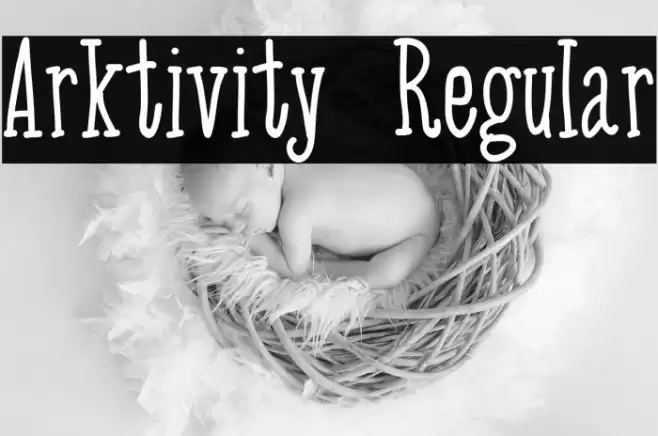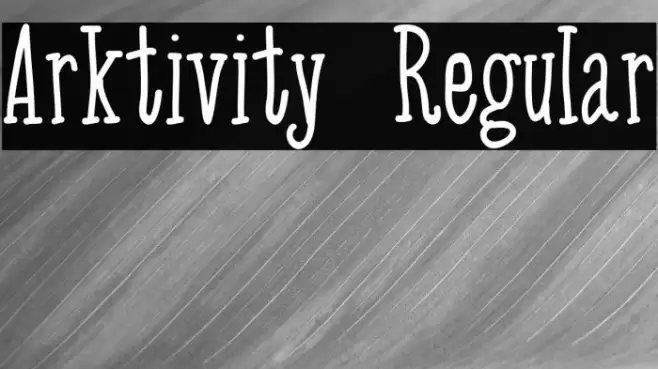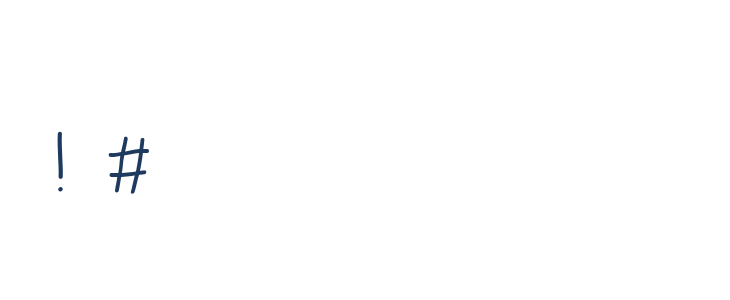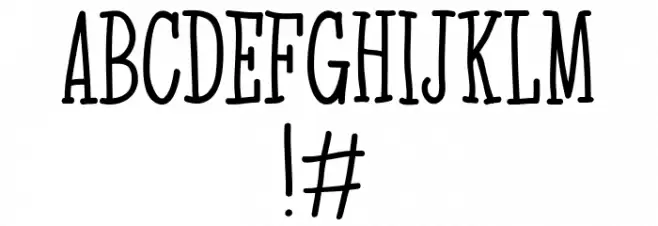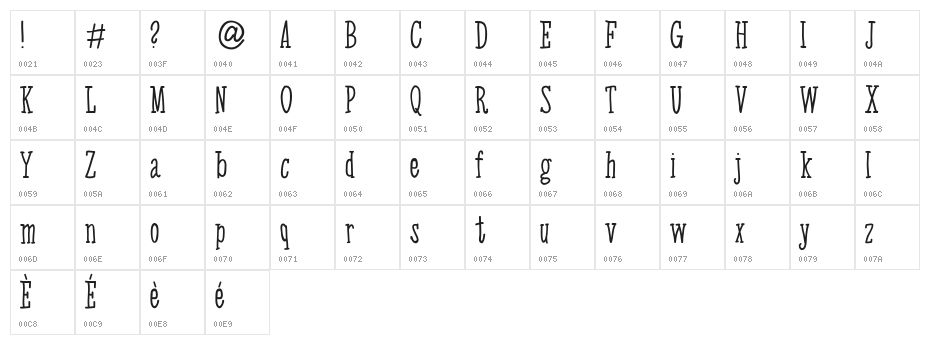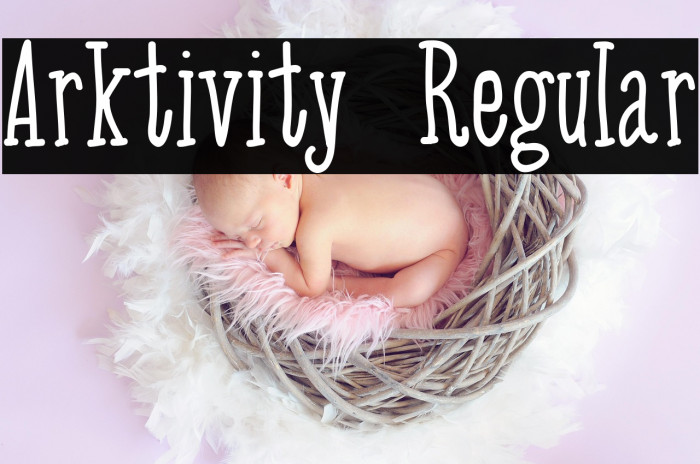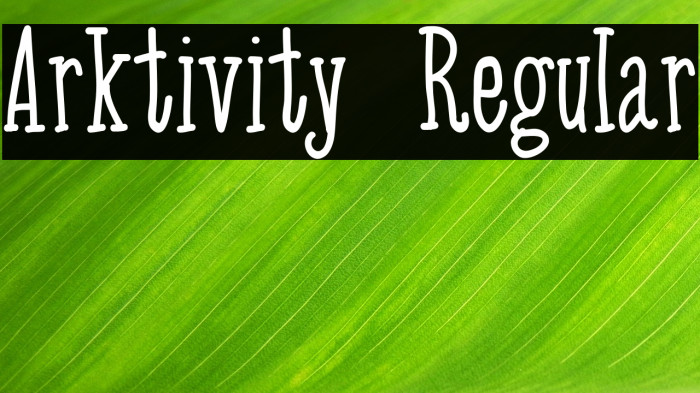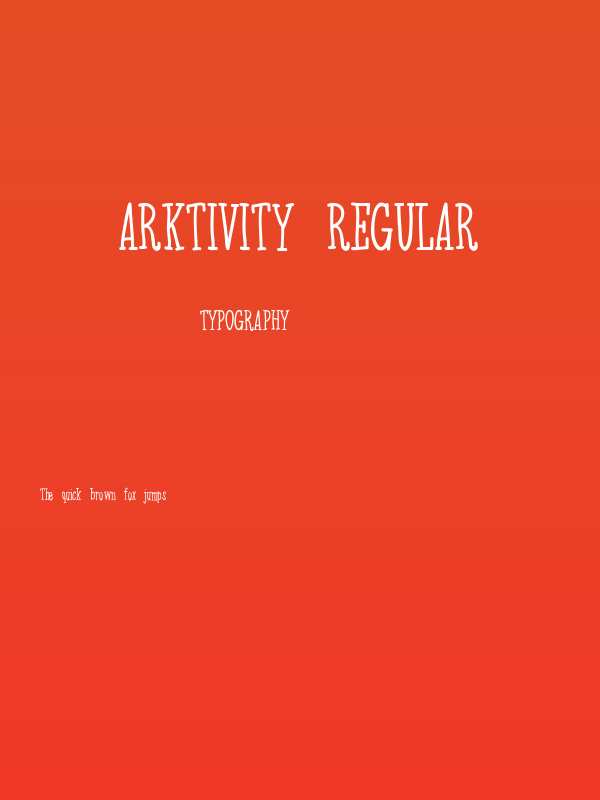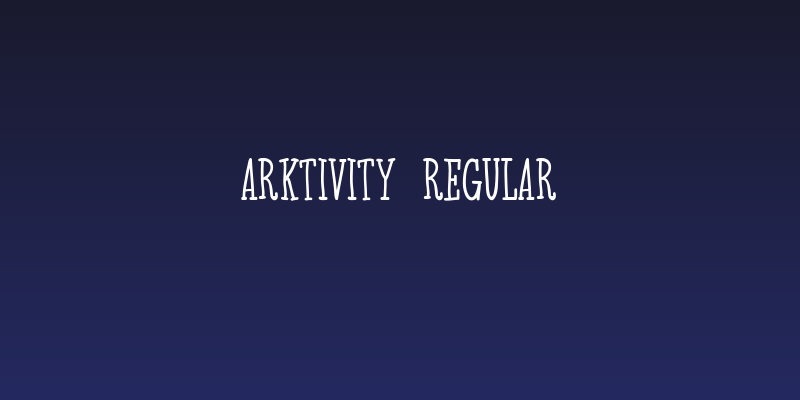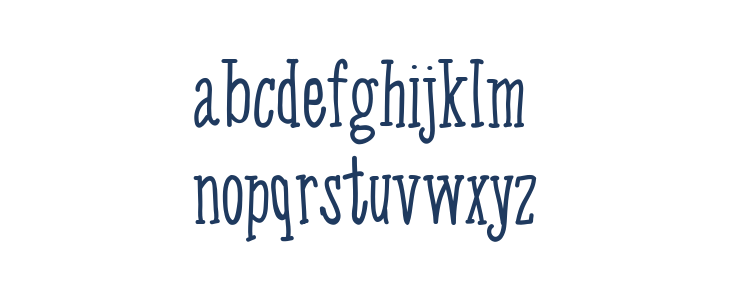
Arktivity Regular Font
Arktivity Regular Description
This font features a playful and whimsical design, characterized by its tall, narrow letters with a slight irregularity that adds a hand-drawn feel. The strokes are consistent in width, giving it a uniform appearance, while the slight curves and uneven baselines contribute to its casual and friendly vibe. The uppercase and lowercase letters maintain a cohesive style, with the uppercase being slightly more pronounced. The numbers and special characters follow the same playful aesthetic, making this font suitable for creative and informal projects.
A playful, hand-drawn style font with tall, narrow letters and a whimsical feel from Regular fonts.
- Font: Arktivity Regular